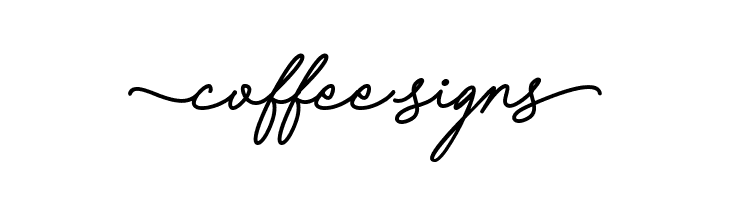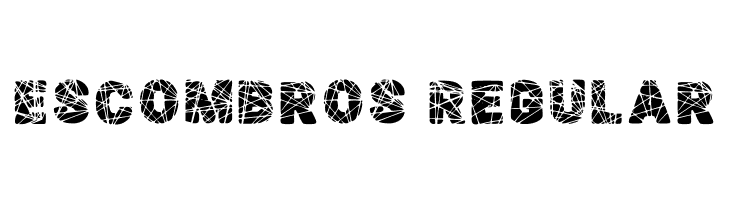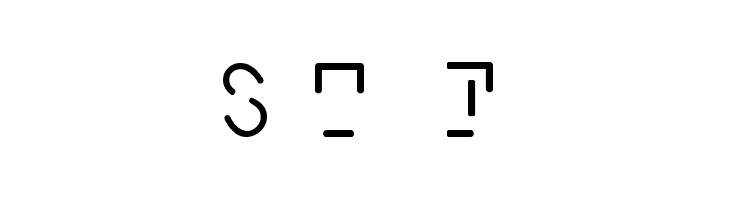
A bold, expressive script font with a hand-drawn, dynamic style.
A geometric, angular font with a futuristic and modern design.
A geometric, grid-based font with a modern, postmodern aesthetic.
A bold, decorative font with intricate swirling patterns.
A bold, playful script font with flowing, connected letterforms.
A bold, 3D italic font with a futuristic and dynamic style.
A bold, comic-inspired font with jagged, dynamic letterforms.
A pixelated, retro-style font with a blocky, geometric design.